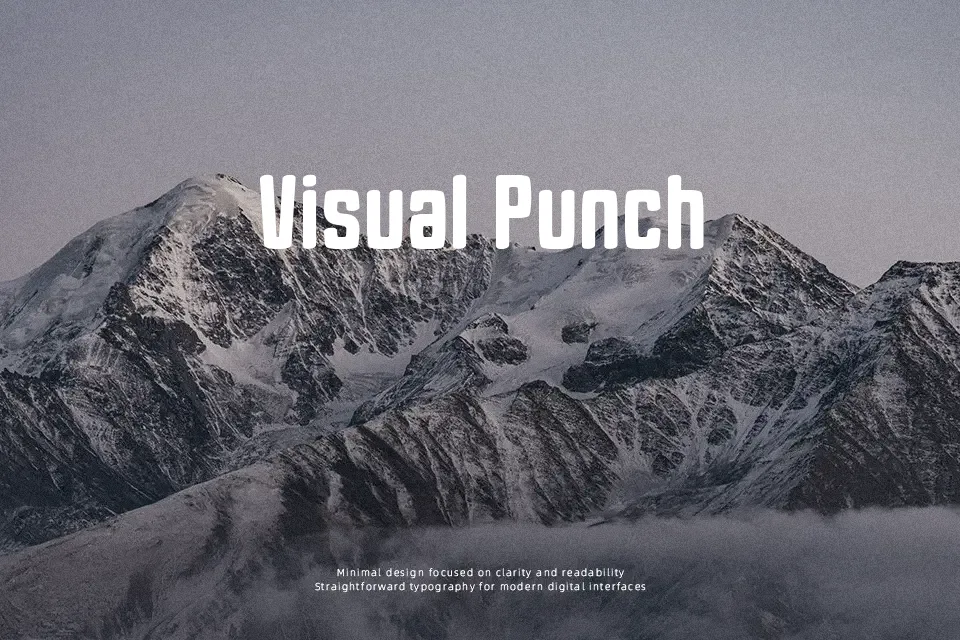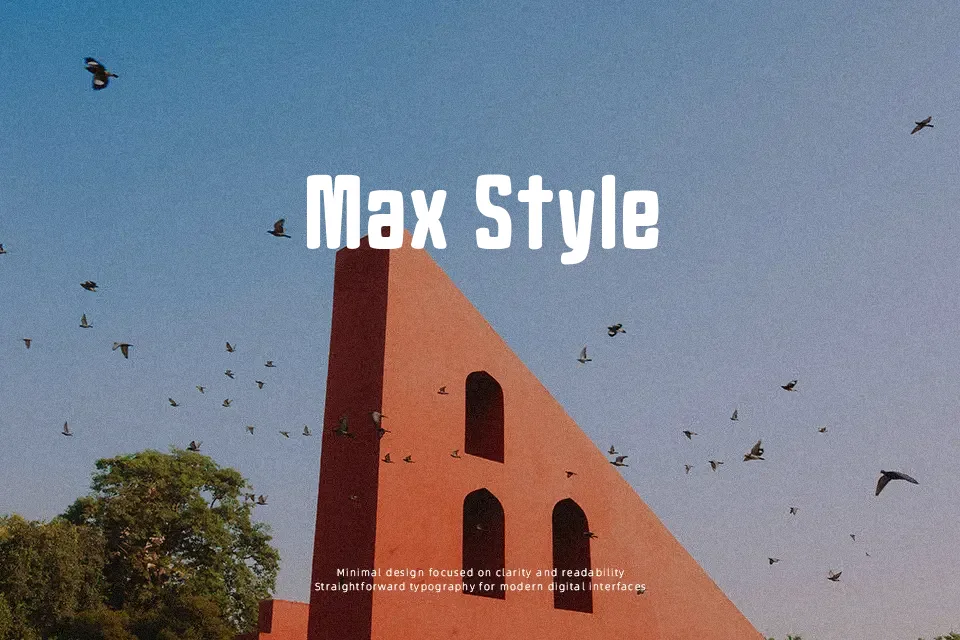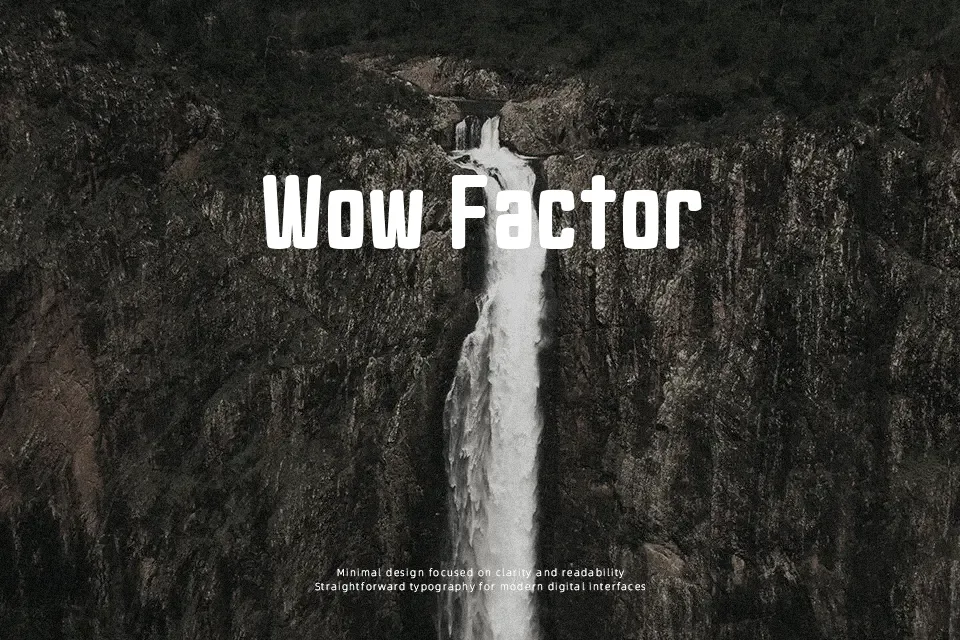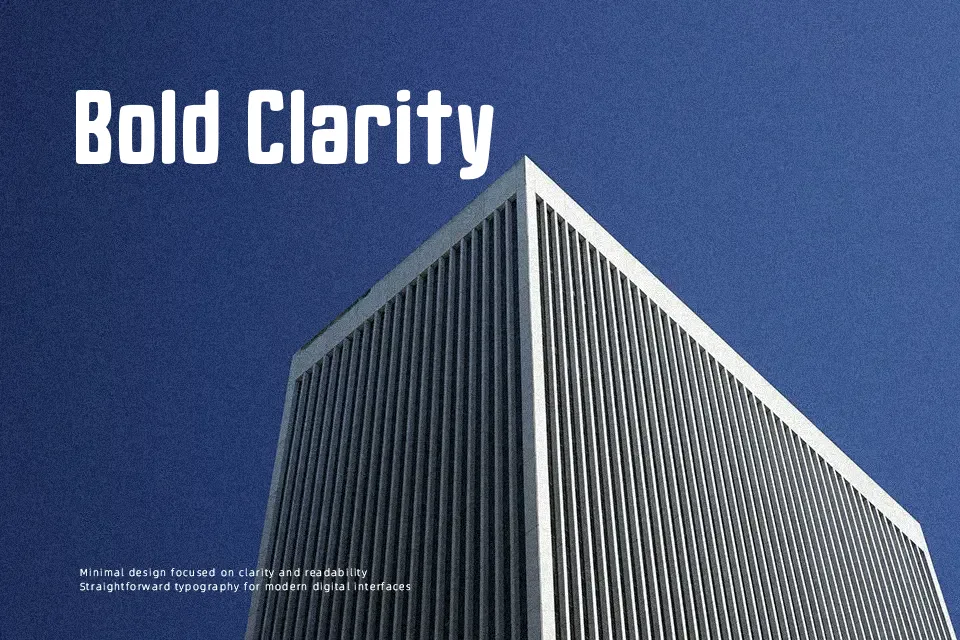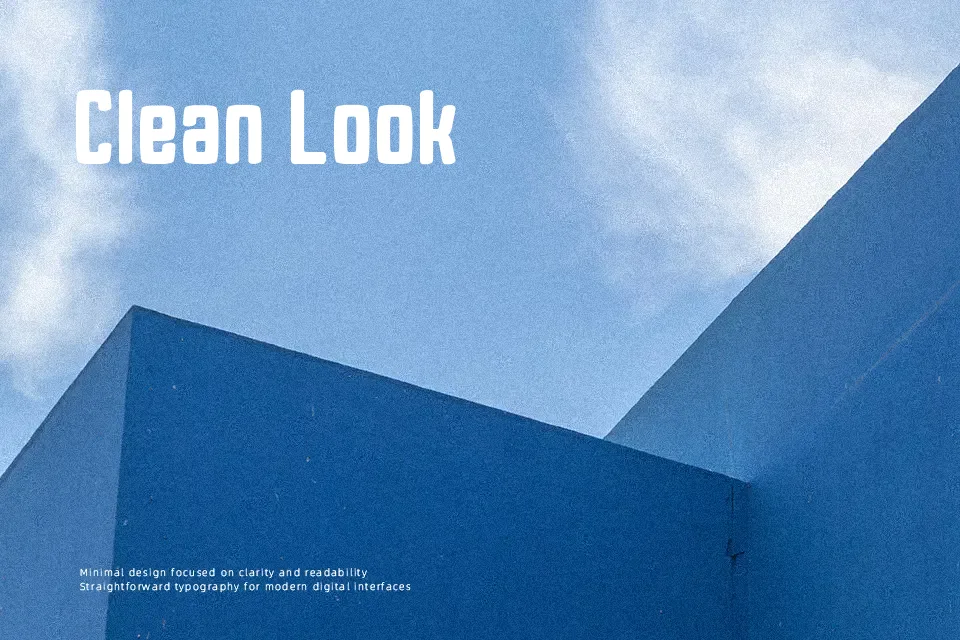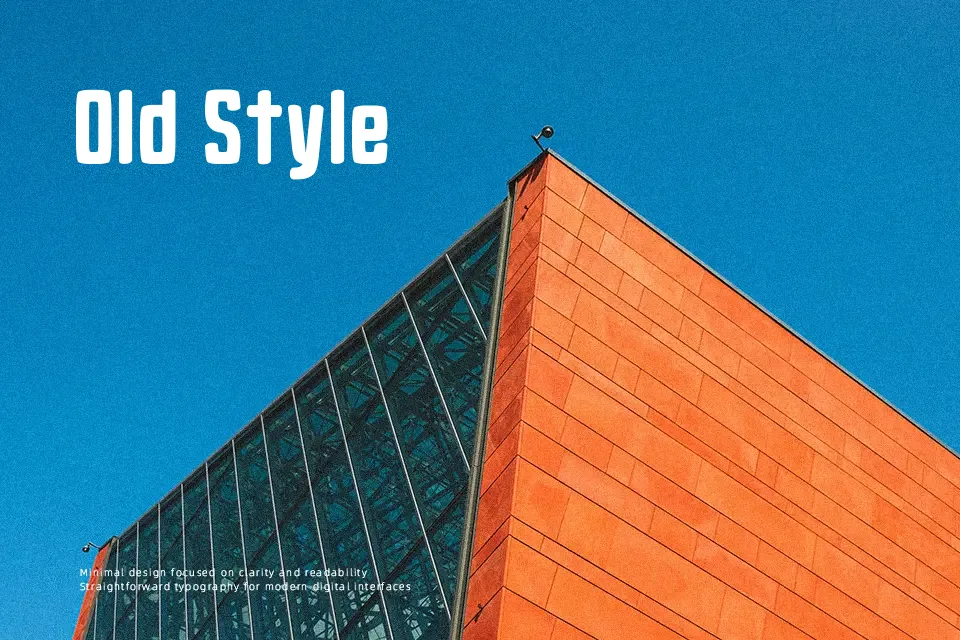
Tofo Steak Font
Tofo Steak Font features a weighty sans-serif structure defined by substantial stroke mass, curved terminal corners, and tightly fitted letter spacing. The design pairs squat vertical proportions with minimal internal counters, producing strong optical density across uppercase and lowercase glyphs. When set in promotional headlines, packaging labels, or animated title sequences, the letterforms deliver punchy visual impact that commands immediate viewer attention. However, the heavy ink weight and narrow negative space severely restrict legibility at modest point sizes, making the typeface poorly suited for continuous editorial body text or technical layouts. The tight spacing helps maintain cohesion in large headlines.
Best For: snack packaging labels, casual restaurant signage, animated title cards, children book covers
Not Ideal For: continuous book text, legal contracts, dense spreadsheet tables, mobile app body copy
Perfect for headline, kids, and logo, with a bold and decorative style.